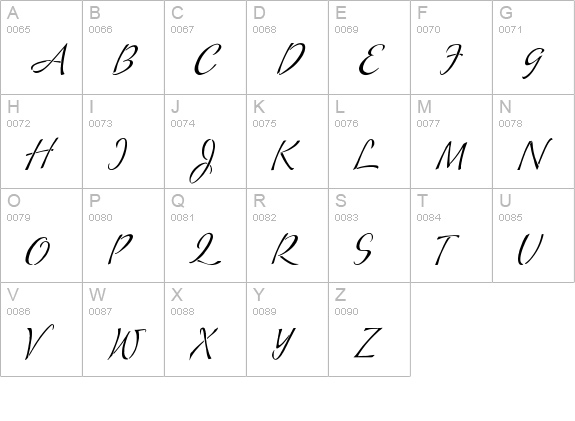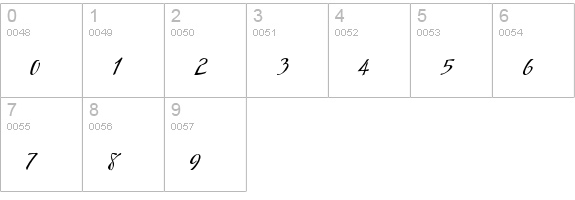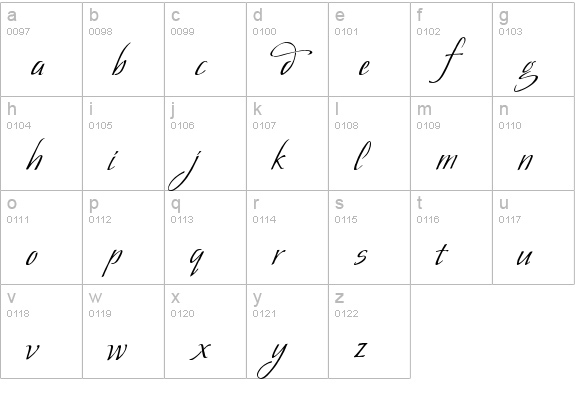
Mr. Wade Font Details
Mr. Wade font is a sleek and modern typeface that exudes sophistication and elegance. With its clean lines and stylish curves, this font is perfect for a wide range of design projects, from branding to advertising to editorial work. Its versatility and readability make it a go-to choice for designers looking to add a touch of class to their creations. What sets Mr. Wade font apart is not only its aesthetic appeal but also its accessibility. This premium font is available for free download at FontsMarket.com, making it an excellent choice for designers on a budget or anyone looking to add a touch of sophistication to their projects without breaking the bank. Whether you're working on a logo, a website, a poster, or any other design project, Mr. Wade font is sure to make a lasting impression. Download it today and take your designs to the next level with this stylish and versatile typeface.